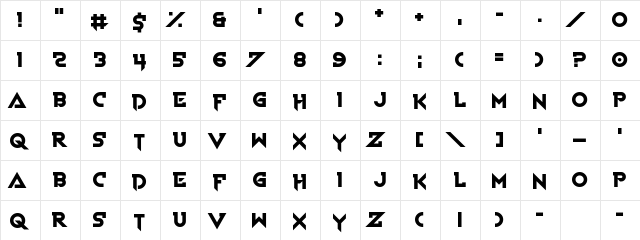
Voice In My Head Regular
Design Context for Voice In My Head Typeface
Voice In My Head is a composed and adaptable typeface that performs quietly and consistently across a wide range of design contexts.